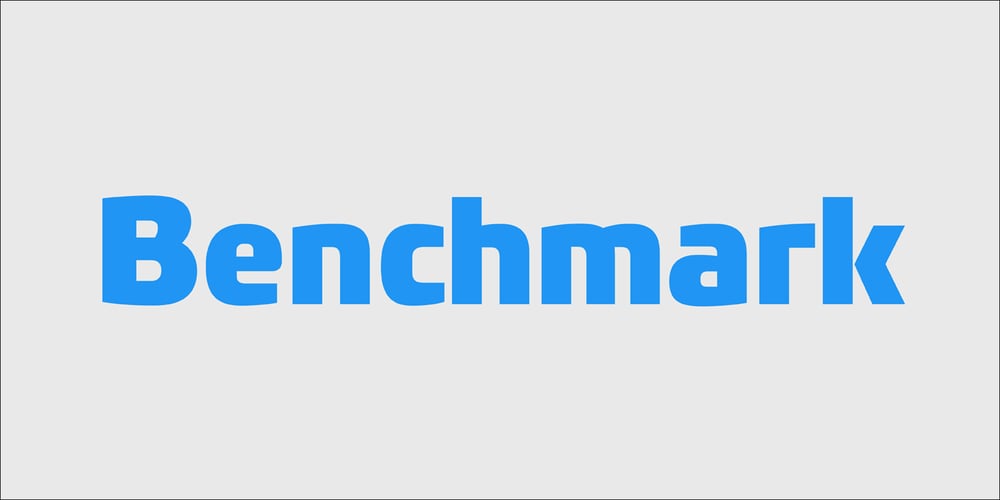
PF Benchmark Pro Font Family was designed by Panos Vassiliou and published by Parachute. PF Benchmark Pro contains 14 styles and family package options. Benchmark Pro is a carefully structured geometric typeface which works amazingly well in body text due to its simplistic nature and large x-height. The design of Benchmark Pro started out as an attempt to convert the minimalistic structure of a technical and purely geometric design into a readable modern and friendly sans serif. This was achieved by selectively changing and turning the straight lines of the initial drawings into curves and applying legibility techniques to the transformed letterforms. These letterforms have a distinct personality which is bolstered by its angular curves and open counter terminals. The result is a contemporary text typeface that looks quite fashionable. Benchmark Pro gets away from the ultra modern and mechanical structure but keeps its display nature, it gets away from the classical but still remains legible. This robust san serif type family offers an extended character set which supports simultaneously Latin, Cyrillic and Greek. All Benchmark Pro font variants have a companion italic, rounding the total family members at 14 fonts. Each font includes more than 750 glyphs and is powered with 17 opentype features. PDF Specimen Benchmark on Behance